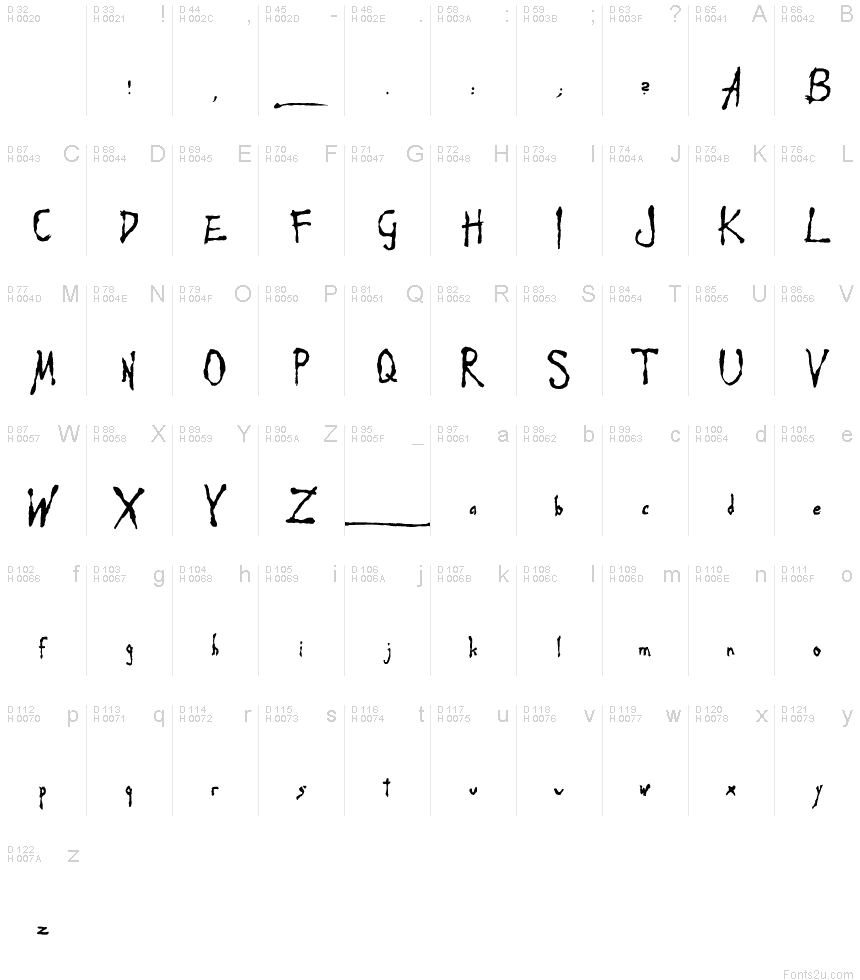
Apocalypse Now by Jens R. Ziehn is a free brush display font with the raw sweep of lettering made quickly in ink. Its uneven strokes shift from thin, scratchy marks to dense slashes, and the tall, extended forms give the lettering a tense, unruly silhouette.
Independent music labels and horror or action productions could use it for album packaging, posters, title cards, and merchandise, where the rough hand-painted finish suggests noise, danger, and urgency. Against distressed photography or splattered artwork, the letters become part of the same abrasive texture.
Apocalypse Now